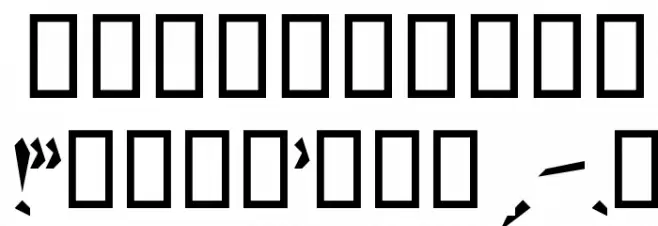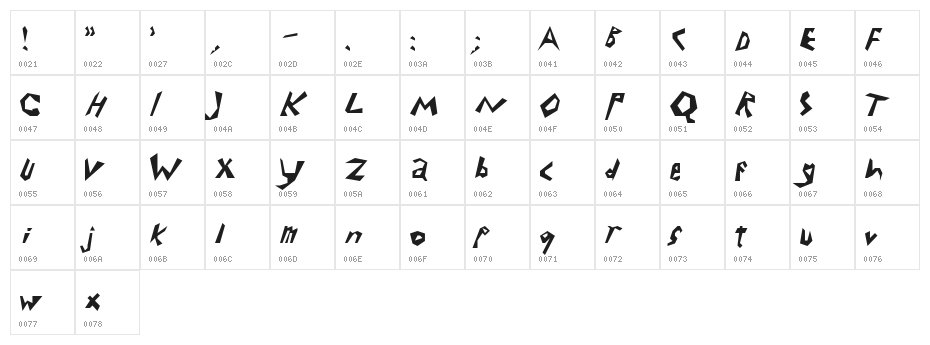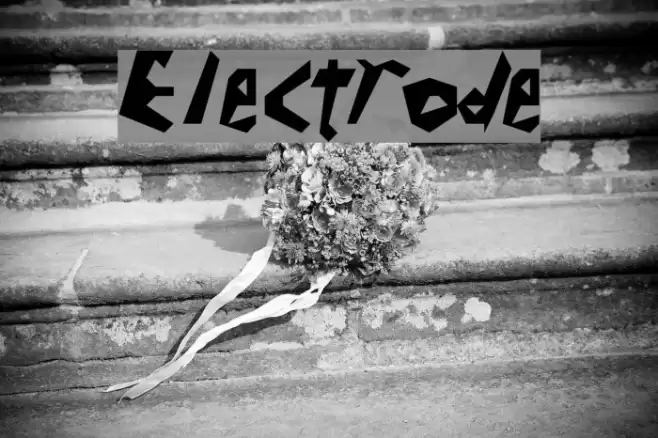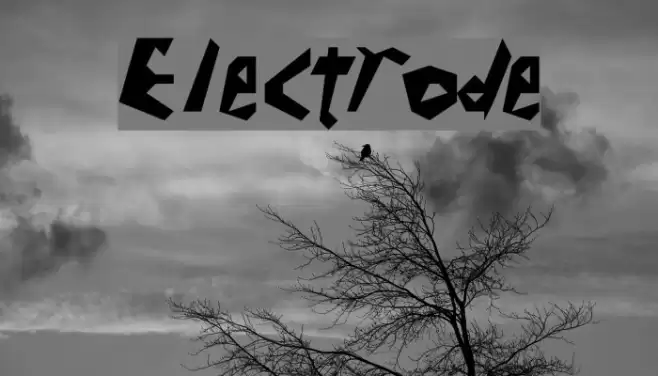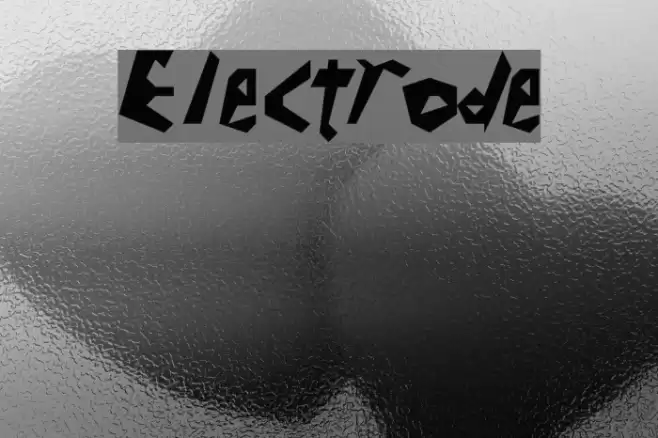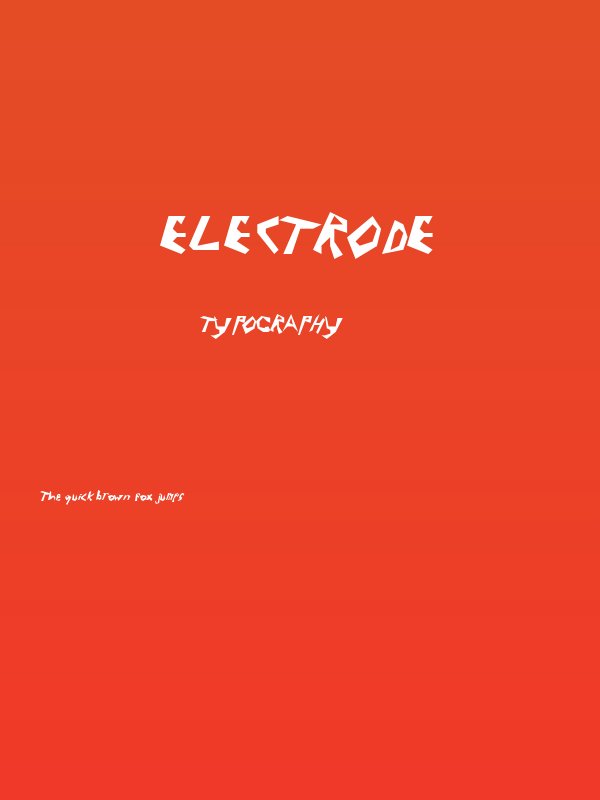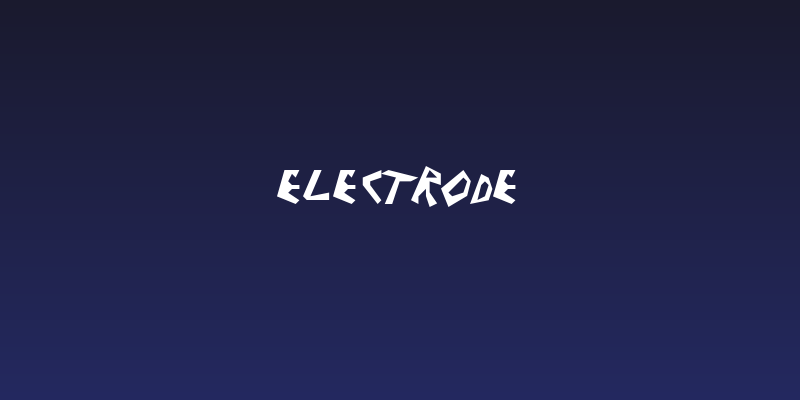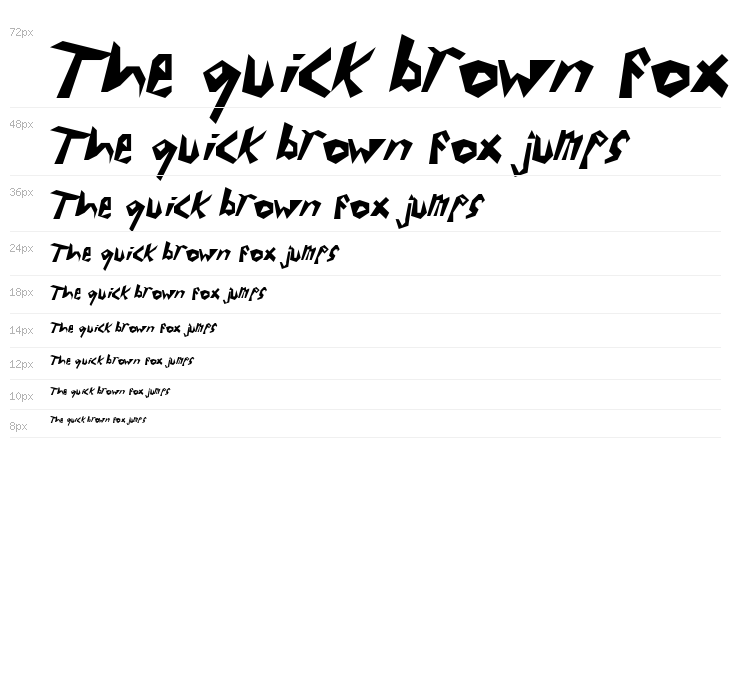
Electrode Font
Electrode Description
This font features a bold, angular design with sharp, jagged edges that create a dynamic and energetic appearance. The characters are constructed with a geometric style, giving them a modern and edgy look. The uppercase and lowercase letters maintain a consistent angular theme, while the numbers and special characters follow suit with a similarly bold and striking design. The font's unique style makes it stand out, ideal for projects that require a strong visual impact. Its distinctiveness is further emphasized by the lack of curves, relying instead on straight lines and sharp angles to form each character.
| Proposed Projects | Ideal for music album covers, video game titles, posters, and branding that requires a bold, modern look. |